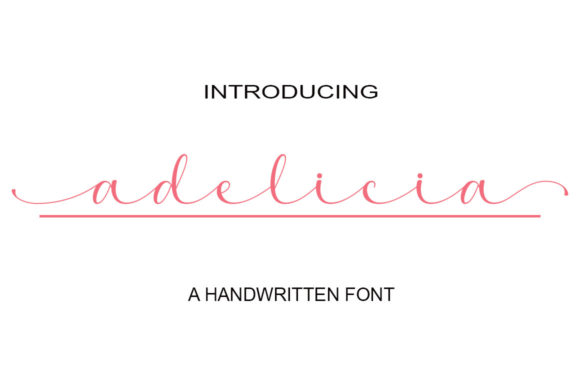
The Quest for the Perfect Font: Discovering Adelicia
I still remember the design project that led me to Adelicia Font. I was working on a luxury branding project for a high-end jewelry client, and I was determined to find the perfect font to match their sophisticated aesthetic. After hours of scrolling through font libraries and testing various options, I stumbled upon Adelicia – a romantic and sweet handwritten font that instantly captured the essence of my client’s brand. ✨
An Honest Review of Adelicia Font
So, what makes Adelicia so special? Let’s dive into the good stuff and a few quirks I’ve discovered while working with this beautiful font.
- ✨ Unique Character Dance: Adelicia’s characters have a delightful way of dancing along the baseline, adding a touch of elegance and sophistication to any project.
- ✅ PUA Encoding: This font is PUA encoded, making it easy to access all the amazing glyphs and ligatures without any hassle.
- 💫 Luxurious Feel: Adelicia adds a luxurious spark to any project, making it perfect for high-end branding, packaging, or marketing materials.
- ⚠️ Limited Use Cases: While Adelicia is perfect for luxury branding and high-end projects, it might not be the best fit for more playful or casual designs.
- 🤔 Kerning Issues: As with any font, some users might experience kerning issues, especially when using Adelicia in combination with other fonts.
The Story Behind Adelicia Font
While the actual origins of Adelicia might be shrouded in mystery, it’s easy to imagine that this font was crafted with love and care by a designer who appreciates the beauty of handwritten scripts. Perhaps the designer, inspired by vintage typography and elegant calligraphy, sought to create a font that would evoke feelings of luxury and sophistication. 💫
Q: What is PUA encoding, and how does it benefit Adelicia users?
A: PUA (Private Use Area) encoding allows font creators to include additional glyphs and characters that aren’t part of the standard Unicode range. For Adelicia users, this means easy access to a wide range of ligatures, swashes, and other special characters, making it easier to create beautiful and unique designs.
Q: Is Adelicia suitable for body text or long-form content?
A: While Adelicia is a beautiful font, it’s primarily designed for display purposes or short-form content. For body text or long-form content, you might prefer a more legible and readable font.